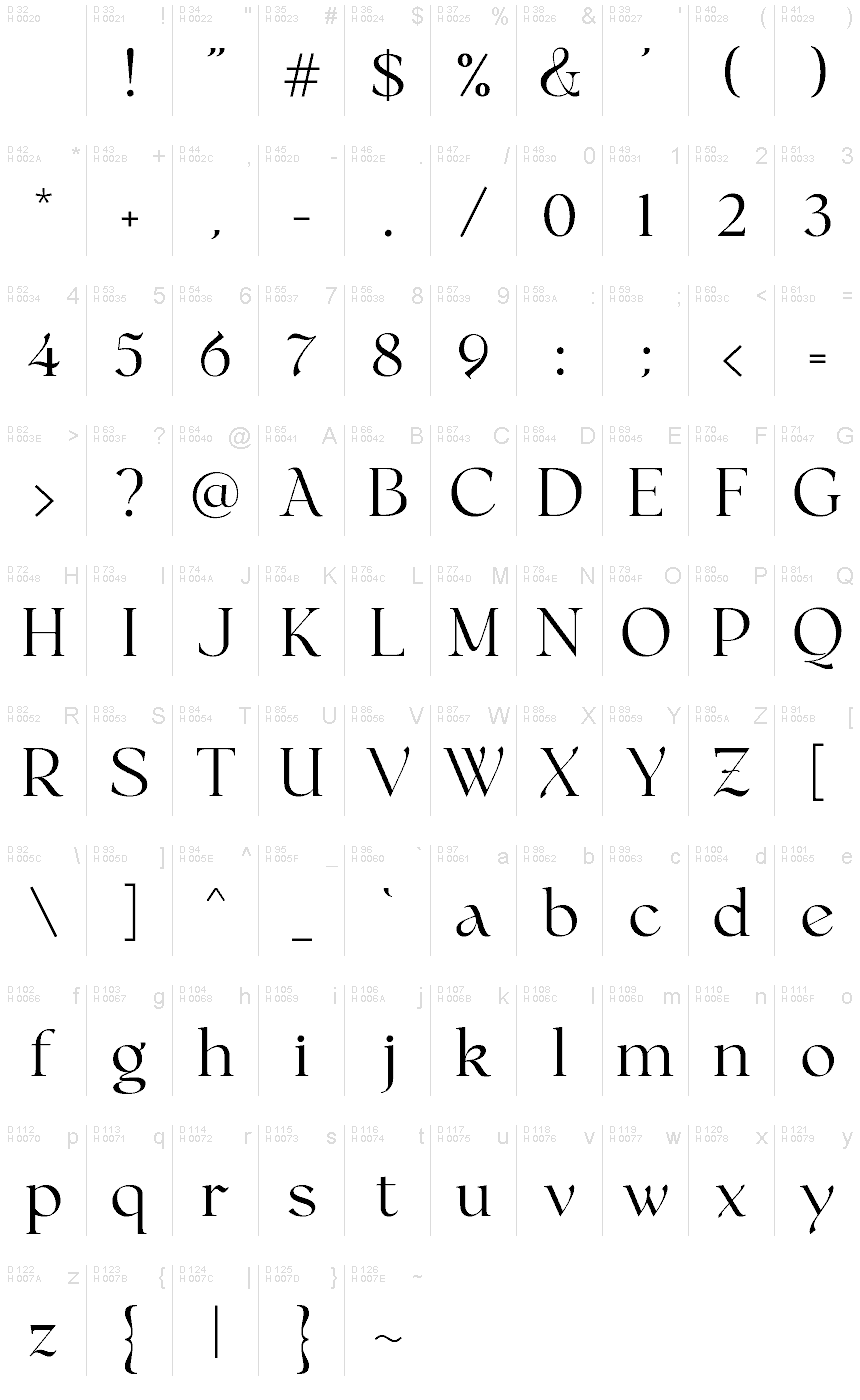
Bellagia Display Thin
Bellagia Display Thin font by Attract Studio captivates with its gentle curves and modern serif style. This elegant and refined typeface exudes sophistication and contemporary appeal, making it ideal for upscale projects. With a carefully considered balance between traditional elements and innovative design, this free serif font presents a harmonious visual experience.
Ideal for branding, editorial design, packaging, web design, posters, brochures, wedding invitations, product labels, social media graphics, and luxury advertisements where elegance is paramount. Its versatility ensures Bellagia seamlessly elevates both print and digital mediums with subtlety and grace.